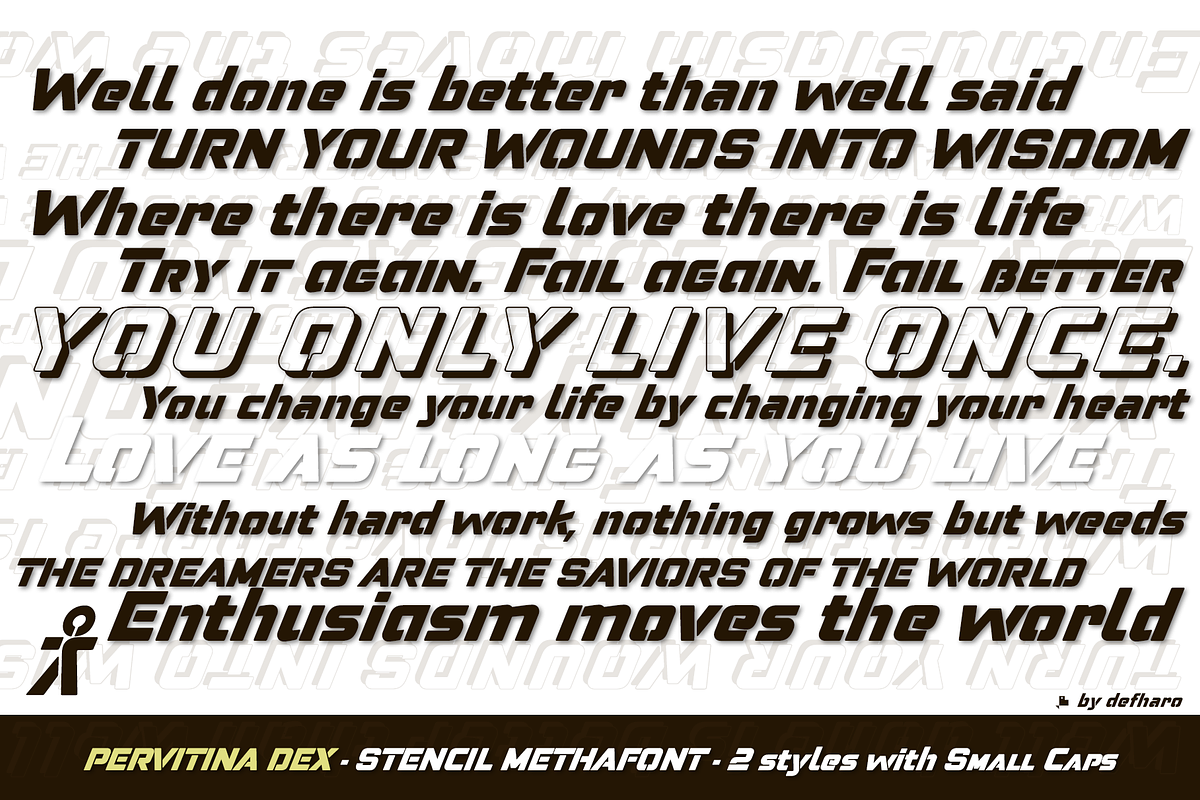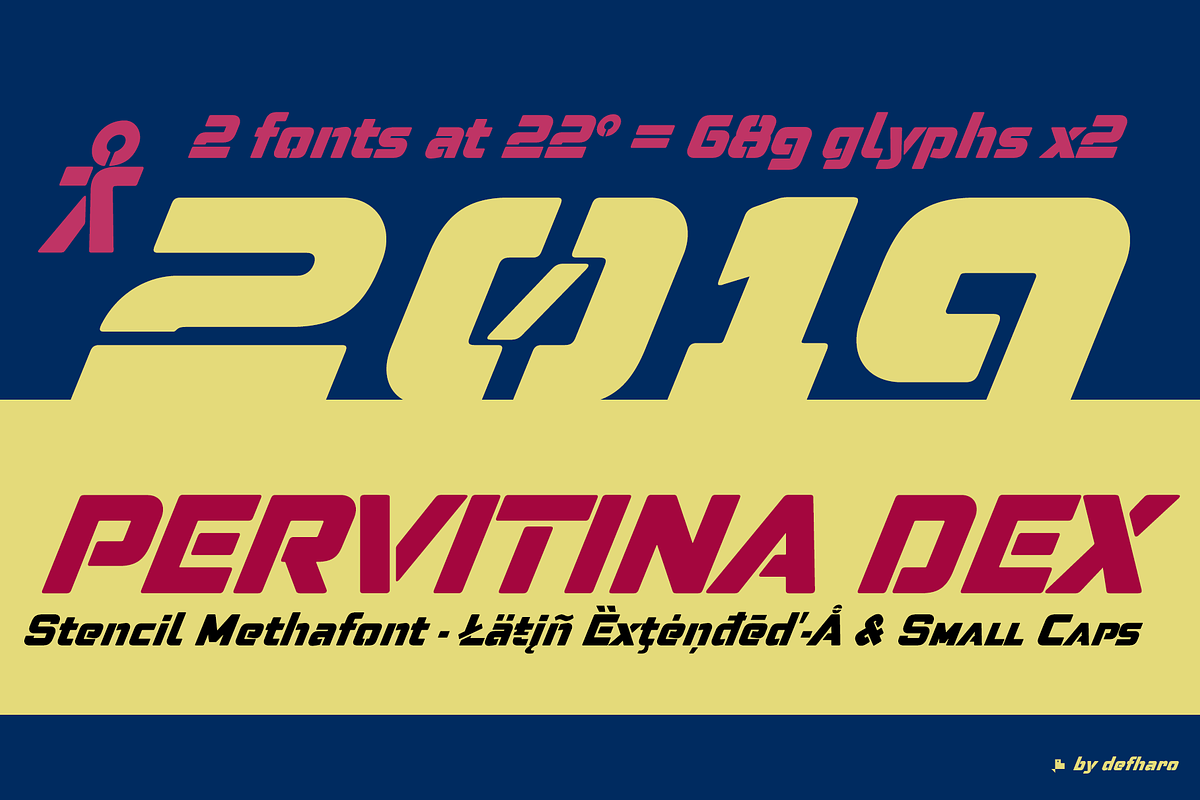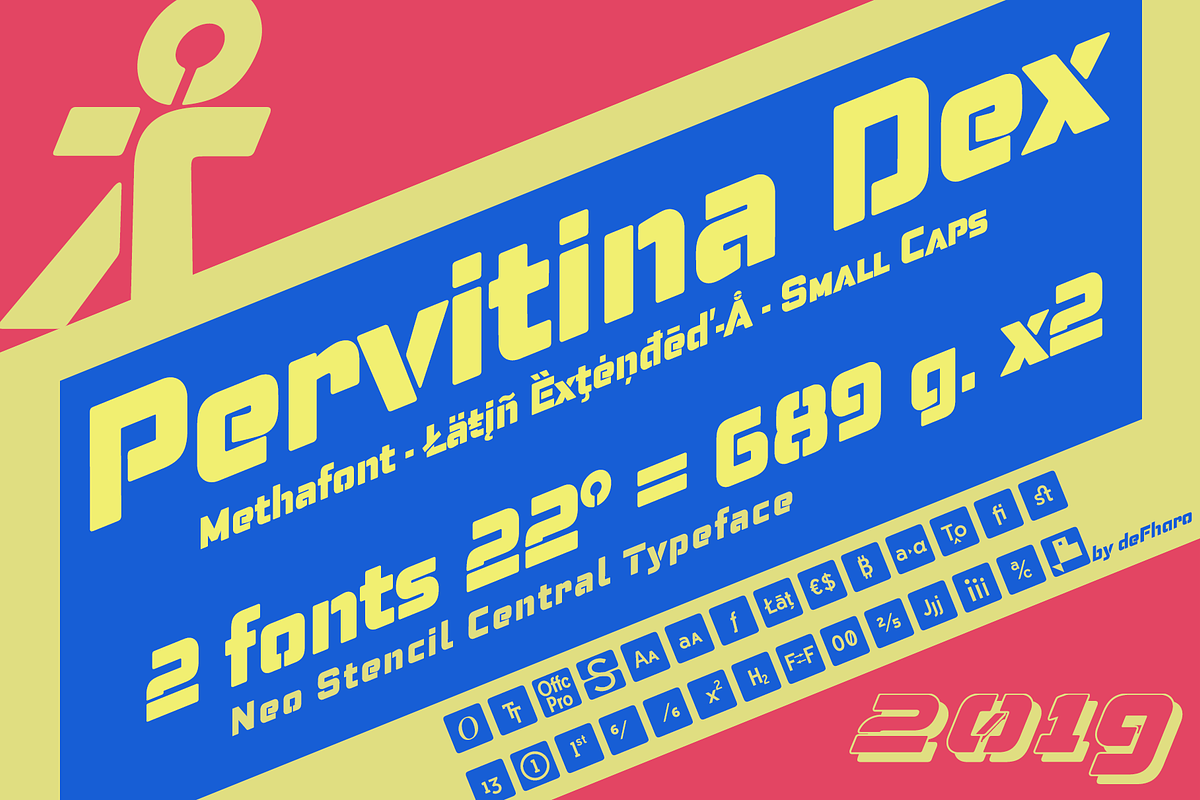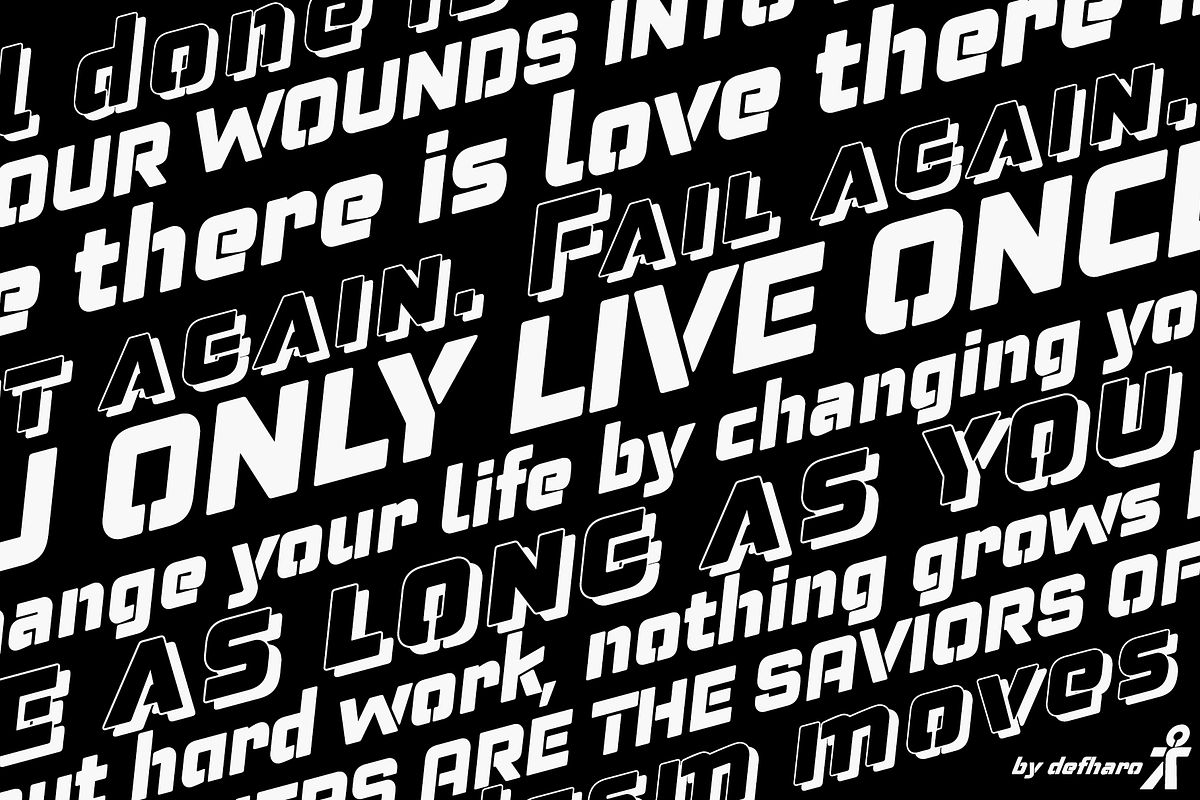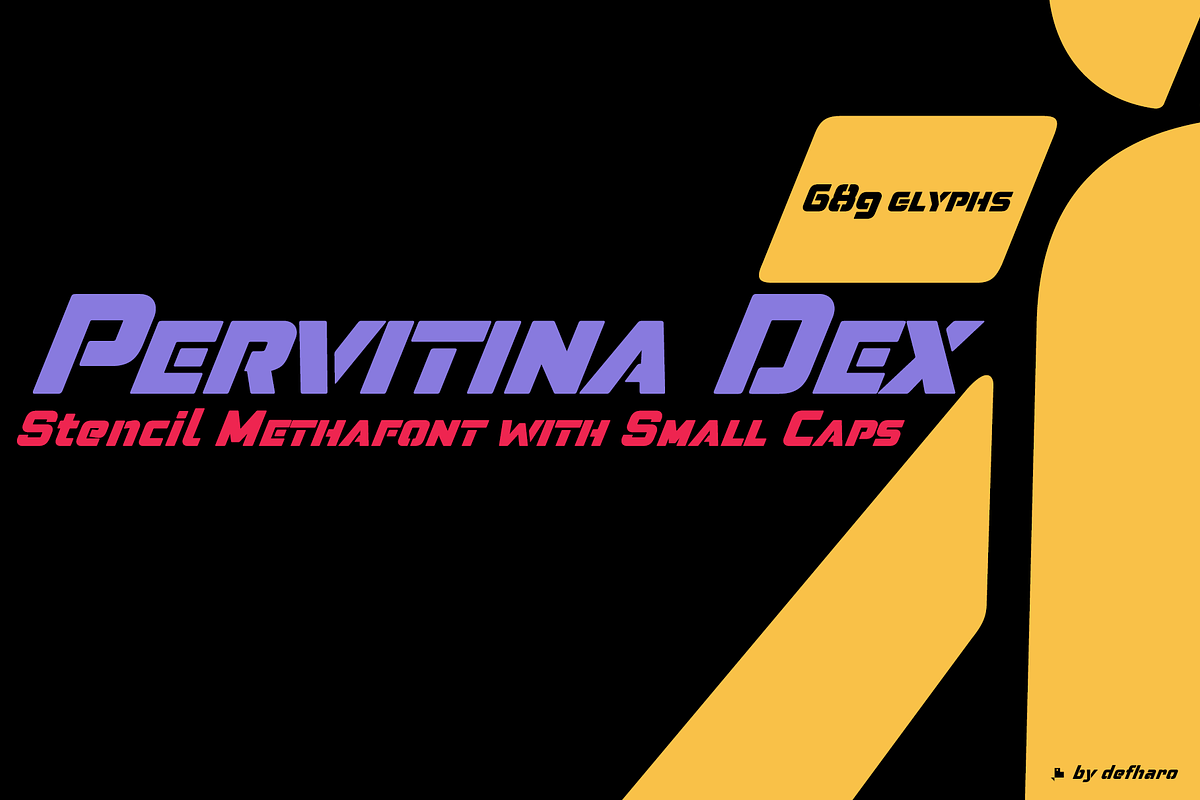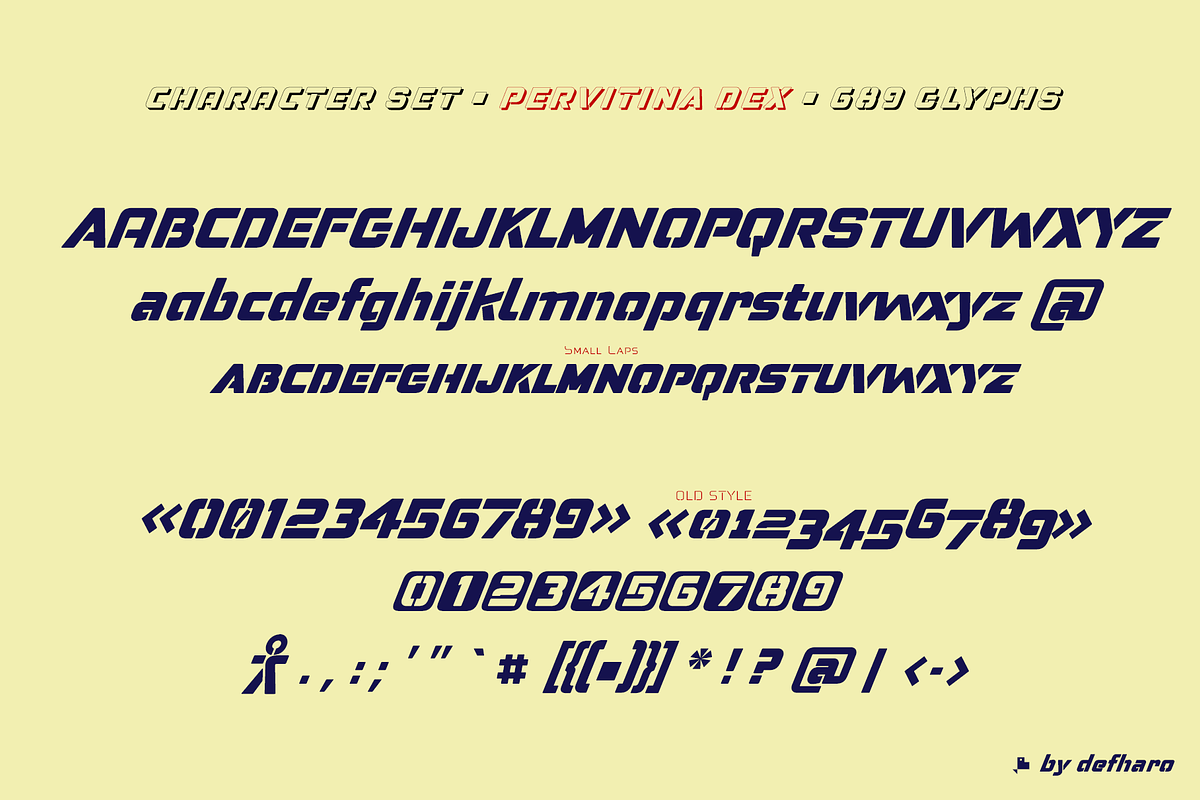
Pervitina Dex -2 fonts-
Pervitina Dex is a display type, thick and inclined at 22° and Neo-Stencil style with rounded corners that includes small letters, several sets of numerals, the bitcoin symbol and other cryptocurrencies. An exclusive font for headlines and brands with superior readability and careful Kerning settings.
Pervitina Dex: Solid & Shadow (2 fonts)
Pervitina Dex includes the symbol of Bitcoin and currency symbols.
OpenType Features: Additional languages, All Alternates, Bitcoin, Contextual Alternates, Denominators, Discretionary Ligatures, Extended Fractions, Historical Forms, Inferiors, Kerning, Localized Forms, Numerators, Oldstyle Figures, Ordinals, Scientific Inferiors, Slashed Zero, Small Capitals, Small Capitals From Capitals, Standard Ligatures, Stylistic Set, Subscript, Superior letters, Superiors, Superscript.